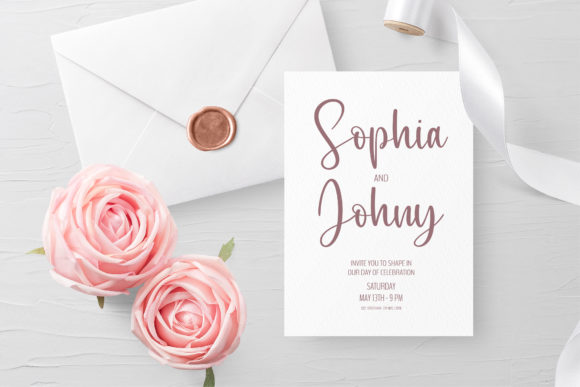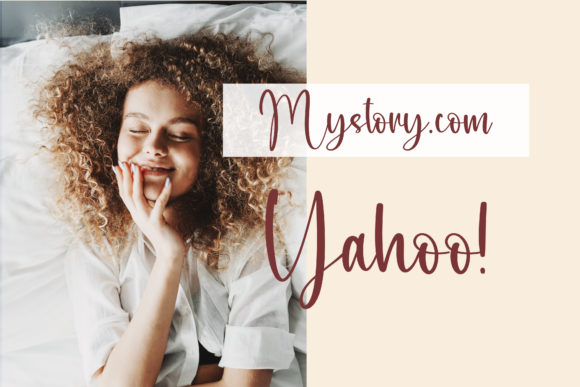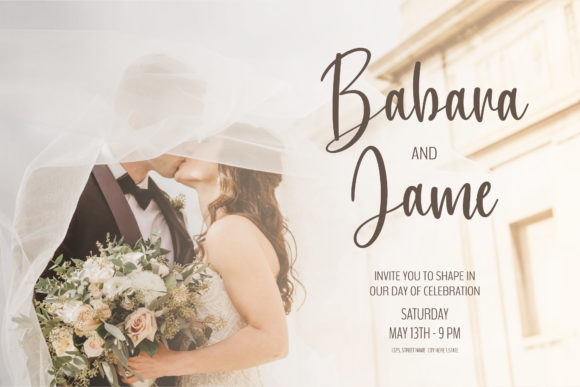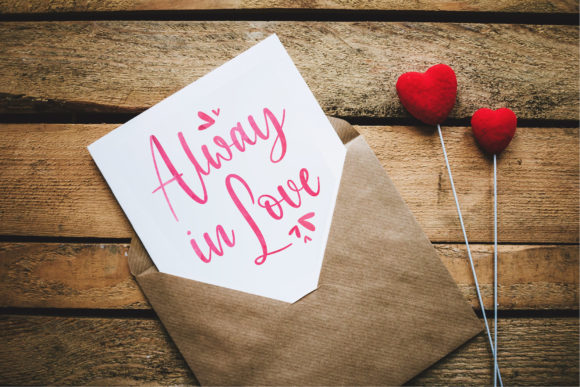
About Factory Love Font
Factory Love is a modern script font. Its natural and unique style makes it incredibly fitting to a large pool of designs. The only limit is your imagination!